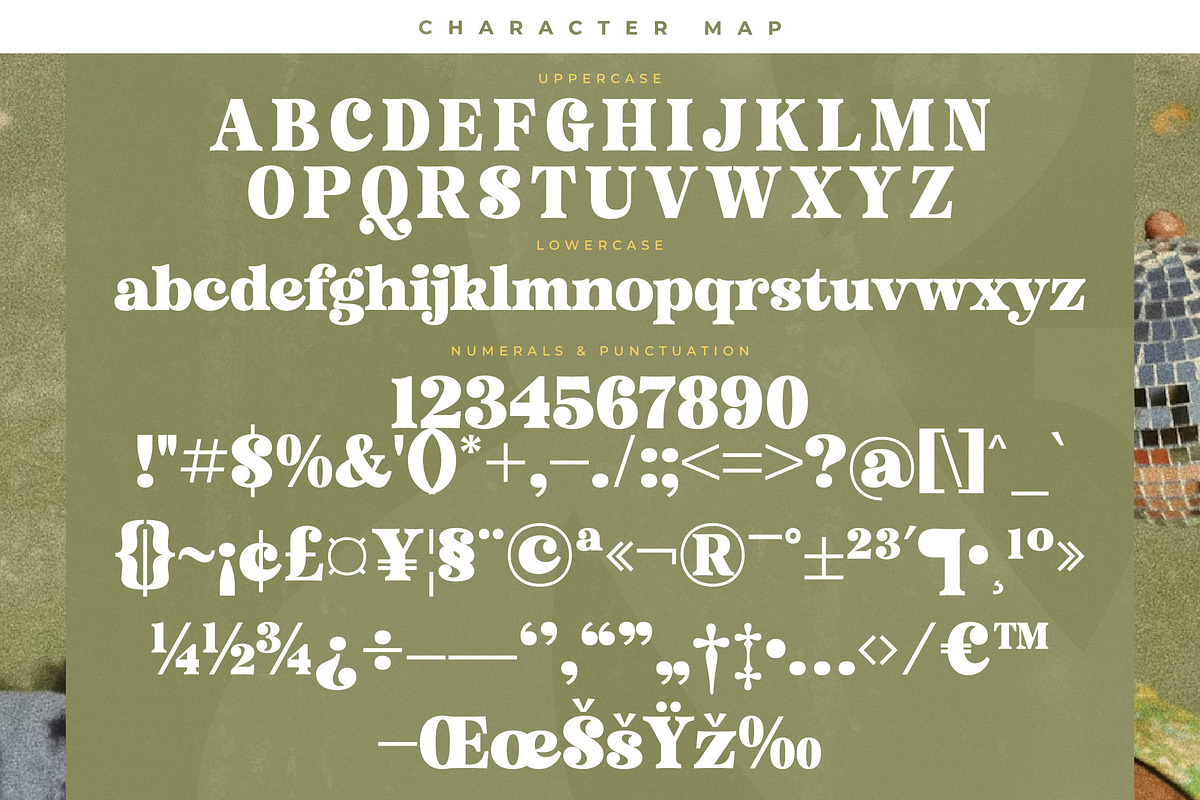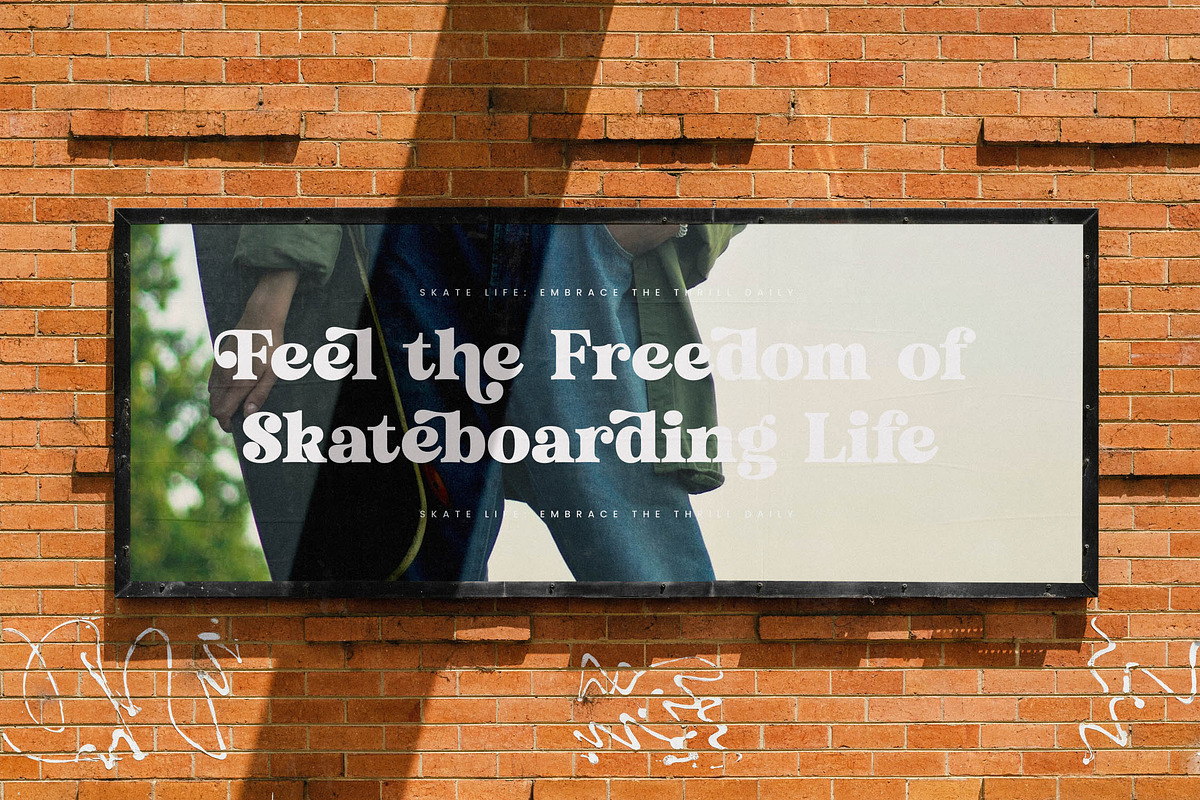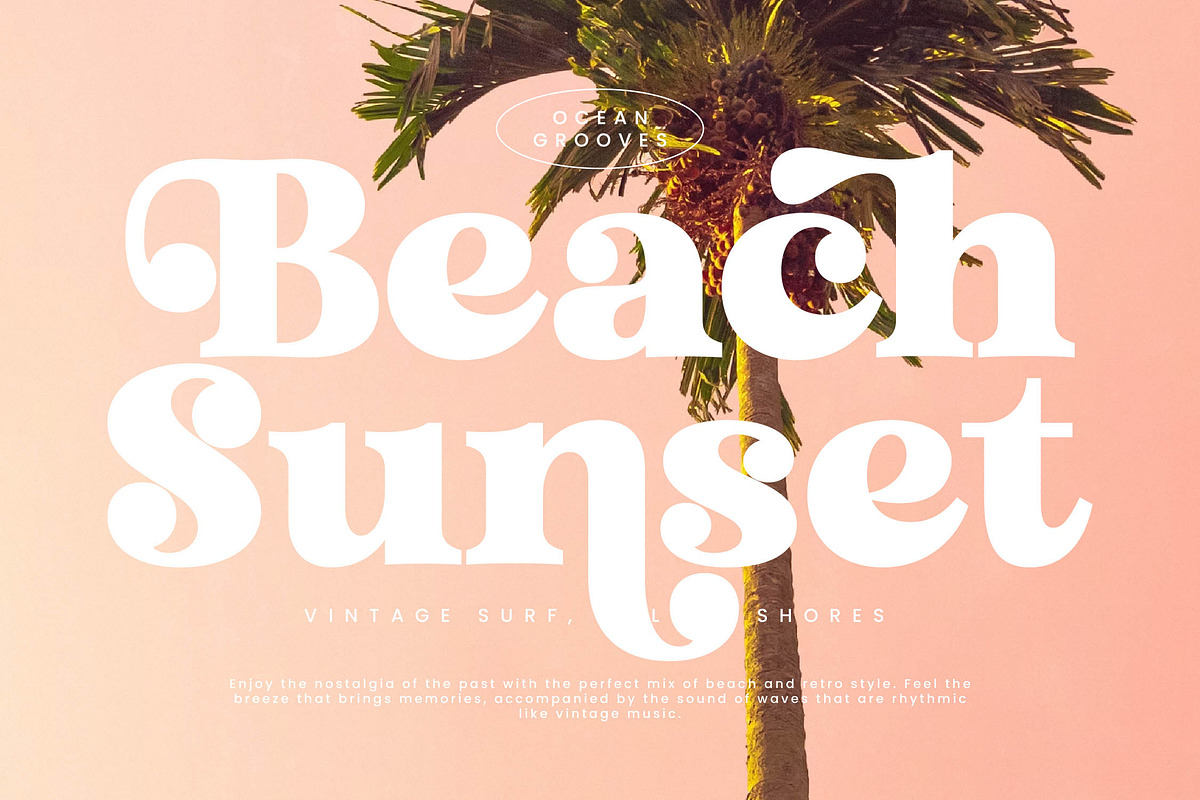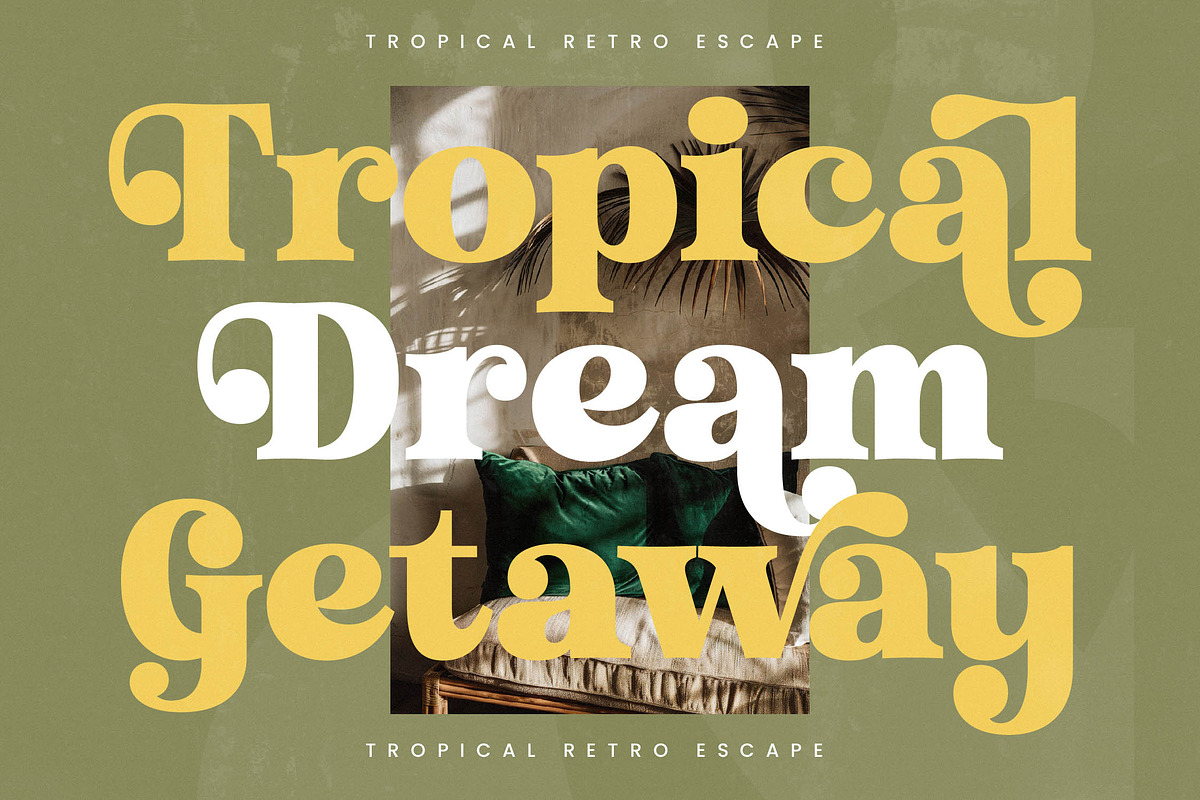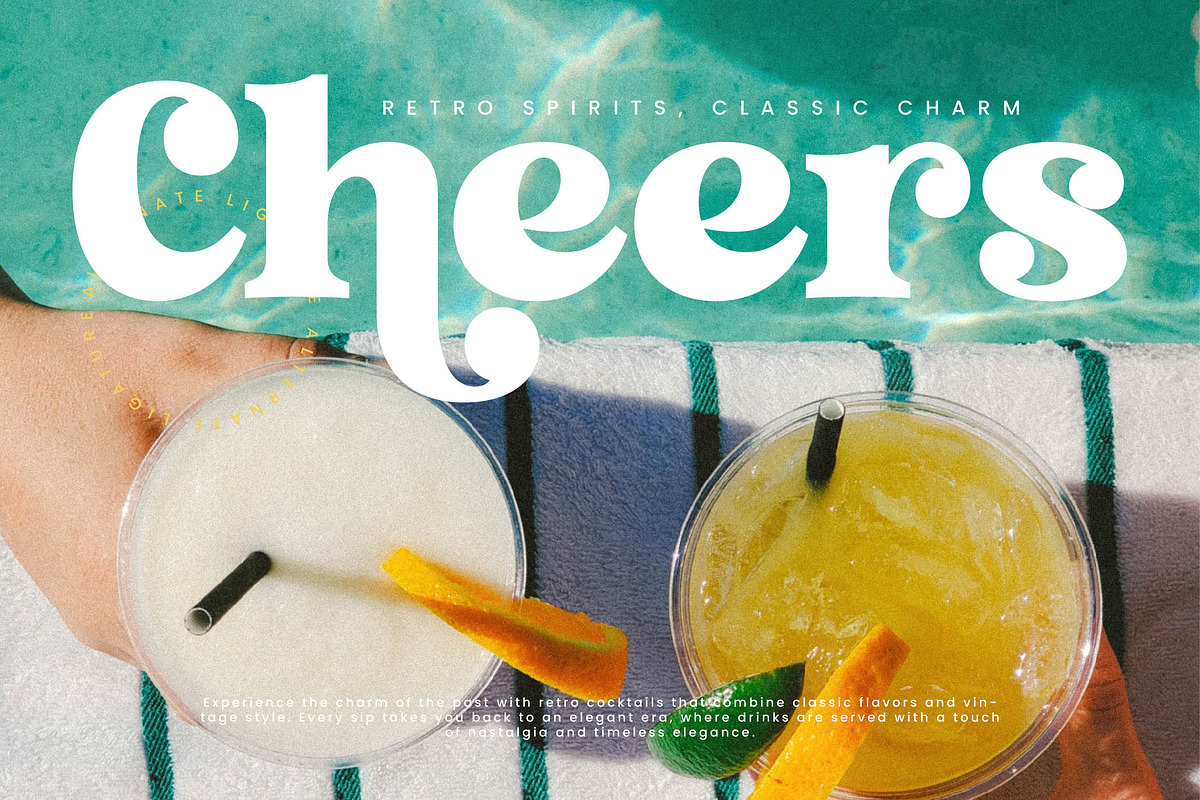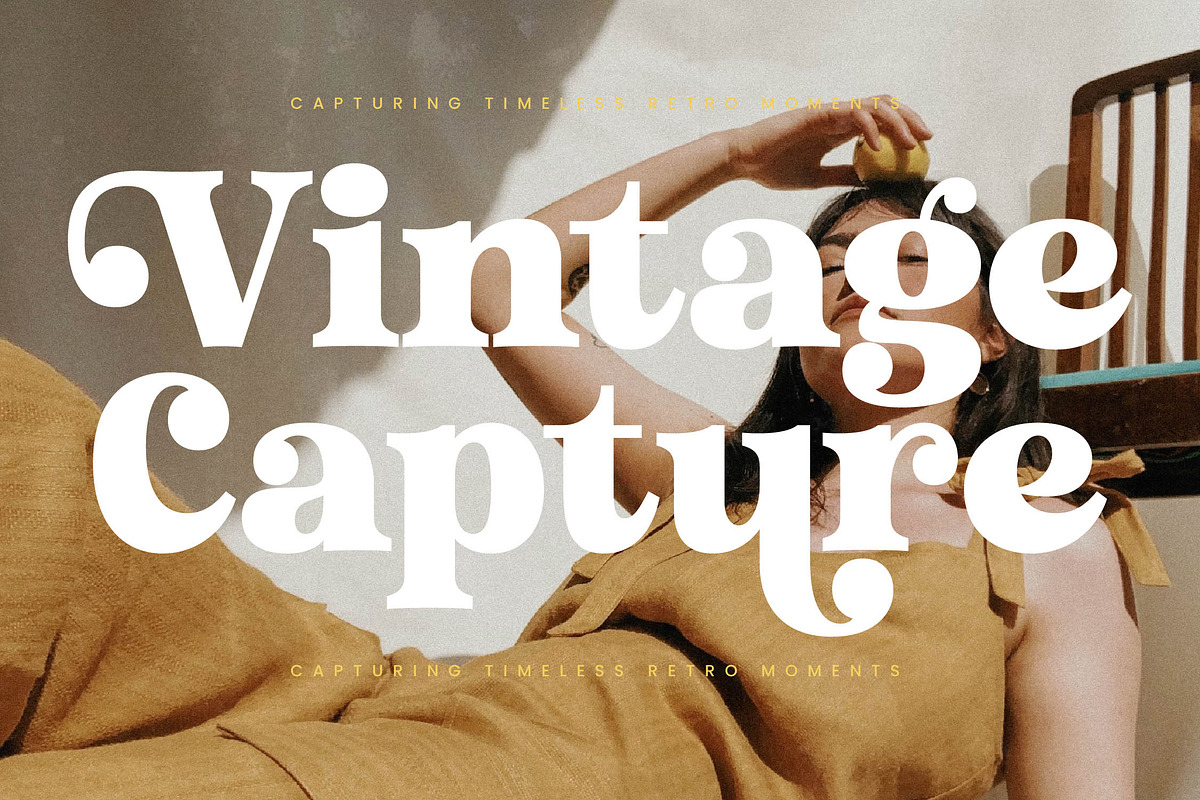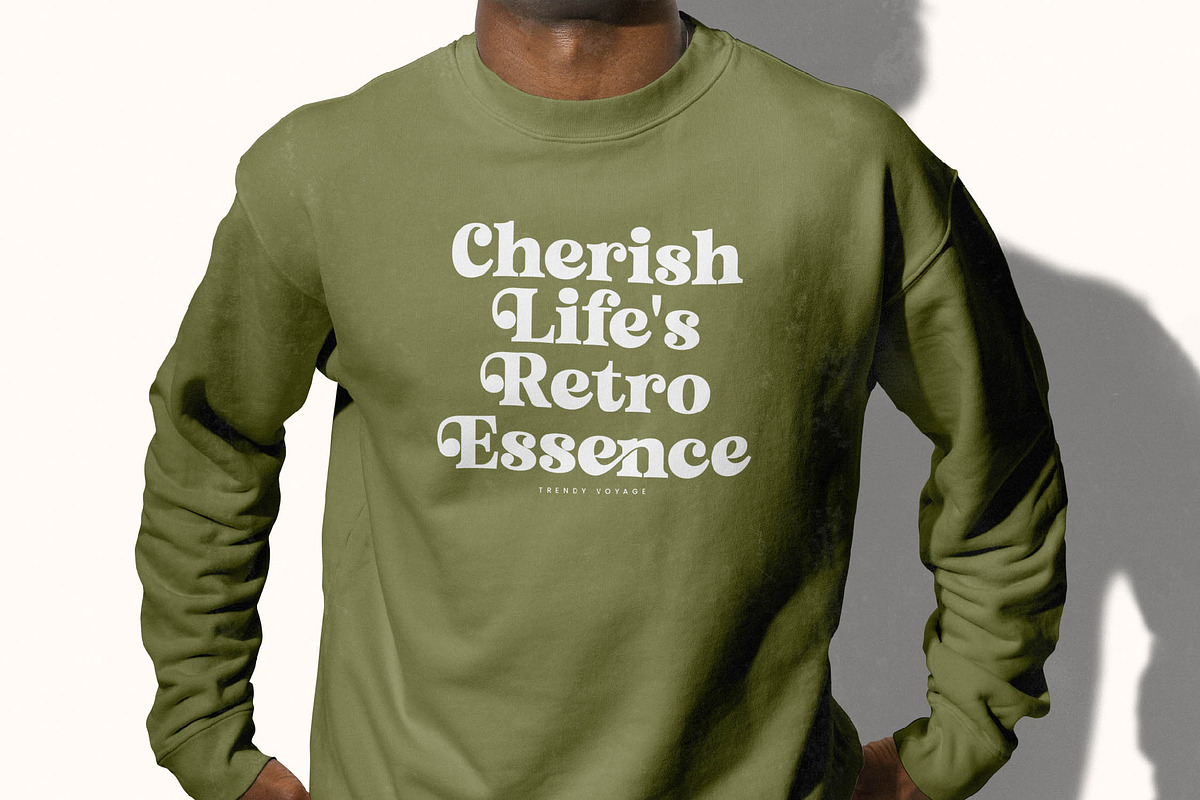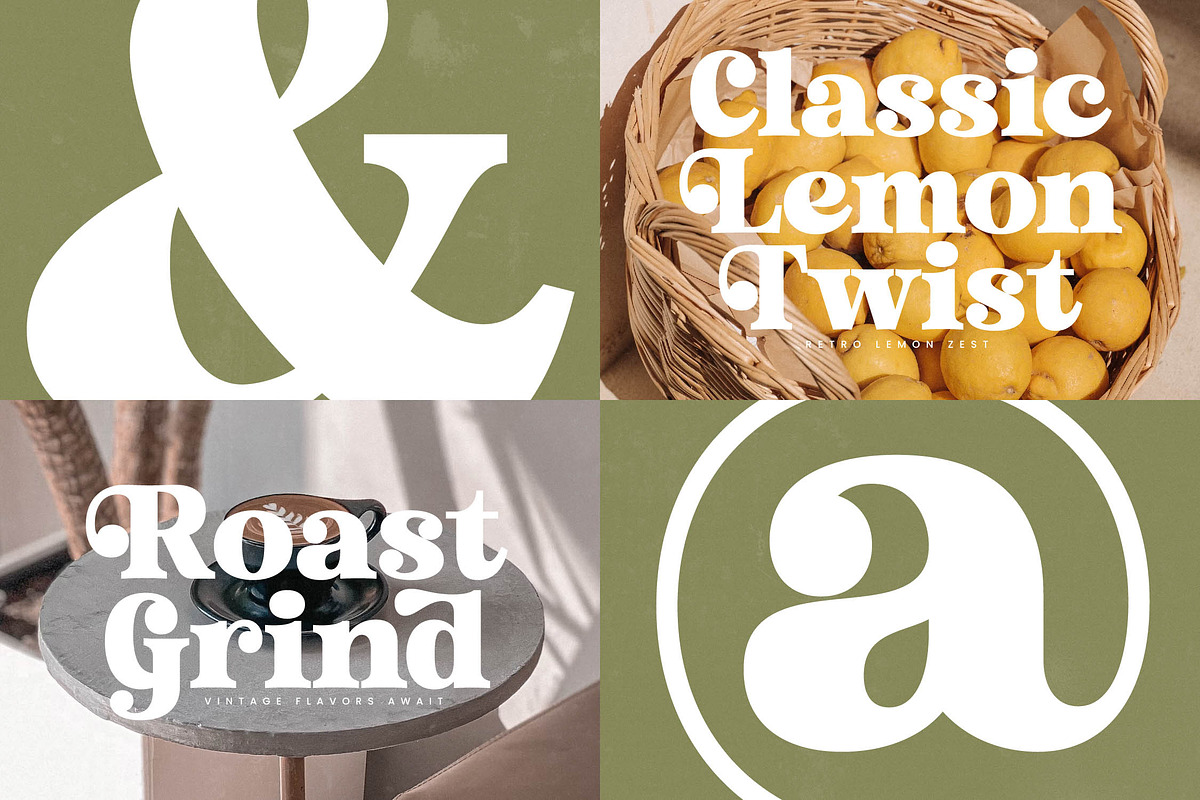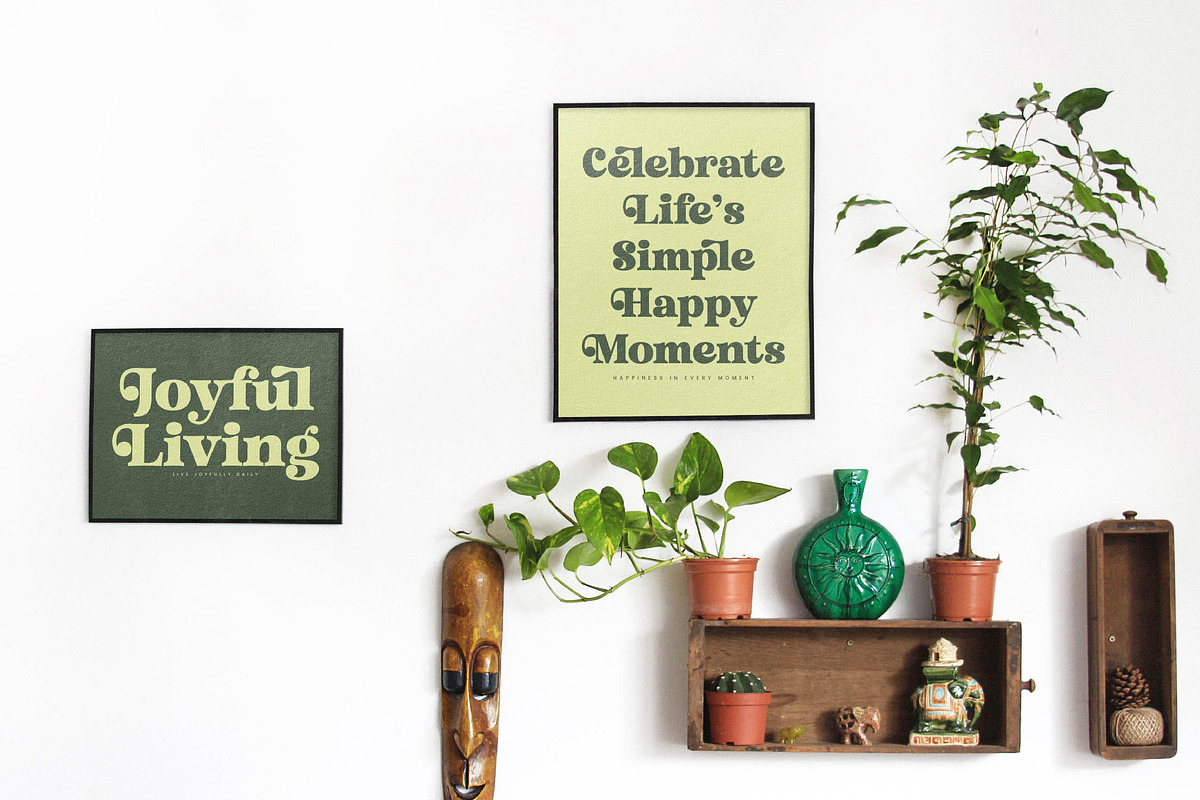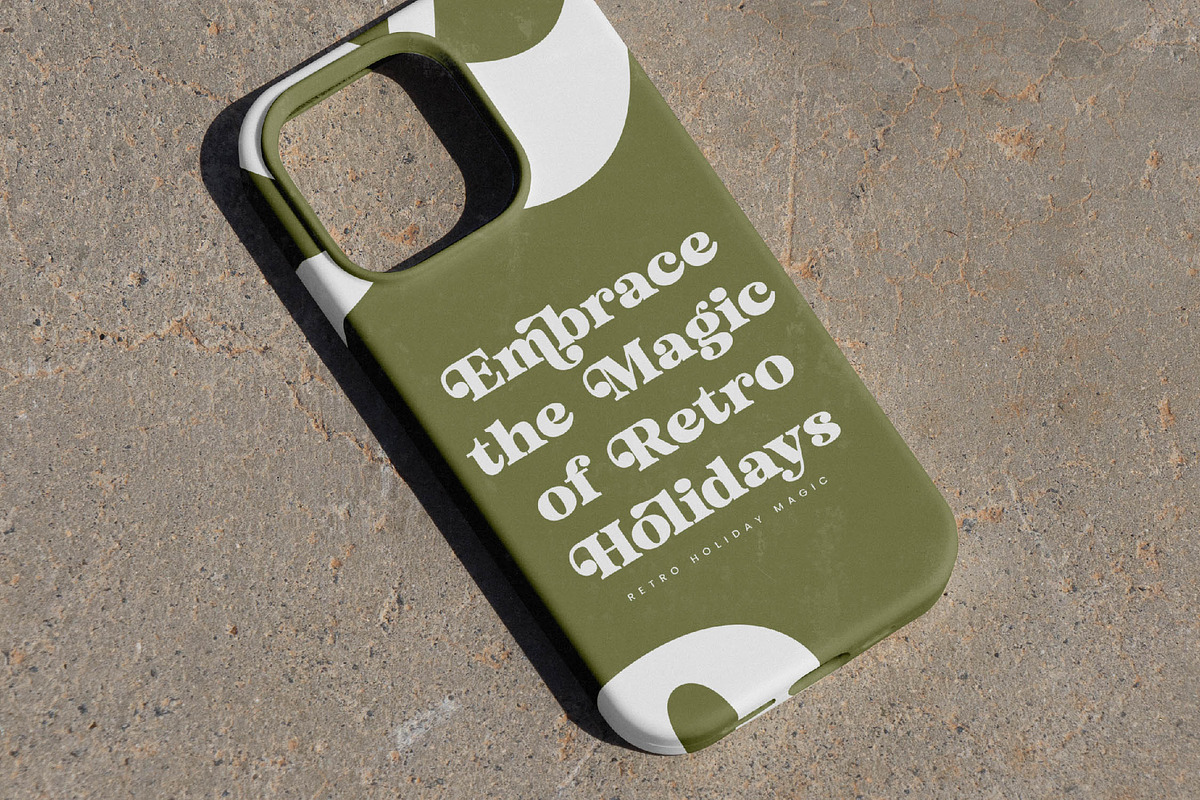
Trendy Voyage Modern Retro Serif
Experience the timeless allure of Trendy Voyage, a typeface designed to transport your creative projects into a realm of effortless sophistication and retro-chic charm. This font captures the essence of a sun-drenched afternoon, blending nostalgic curves with a sharp, contemporary edge that demands attention.
Drawing inspiration from the high-glamour aesthetics of the 70s and the refined elegance of modern editorial design, this font evokes the spirit of a luxurious getaway. It mirrors the fluid motion of a vintage coastal journey, where every curve tells a story of style, travel, and artistic freedom.
With its striking high-contrast serif forms and soft, inviting swashes, this modern serif display offers a unique personality that is both bold and approachable. It is the perfect choice for luxury typography that needs to balance a sense of heritage with a fresh, editorial font energy, ensuring a powerful branding impact.
As designers continue to embrace the modern serif trend, this typeface stands out as a leading example of character-driven typography. It perfectly aligns with the current demand for editorial display fonts that offer more than just legibility, providing a distinct visual voice that resonates with contemporary audiences.
This versatile typeface is an ideal companion for high-end logo design and comprehensive branding projects where a touch of retro flair is required. It excels in editorial layouts, premium product packaging, and romantic wedding stationery, while its fashionable aesthetic makes it a natural fit for the fashion industry and lifestyle magazine spreads.
Unlock endless creative possibilities with an extensive collection of ligatures and unique alternates that allow for custom-tailored headlines. The font also includes elegant swashes and full multilingual support with a wide range of international characters, making it a truly global tool for premium design.
- Ligature 25 Alternate 39